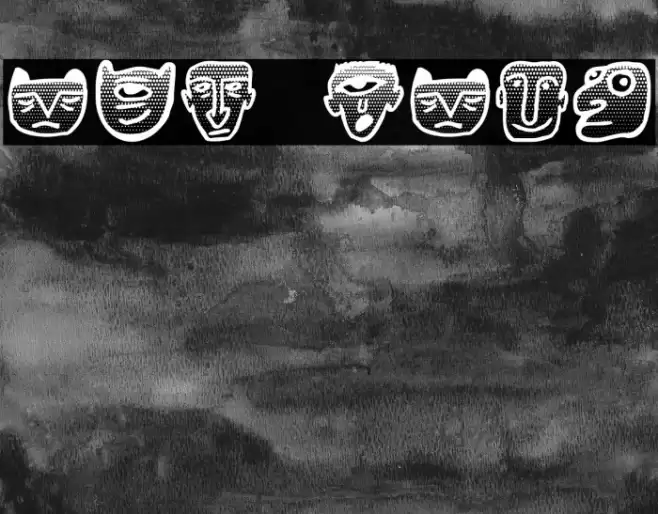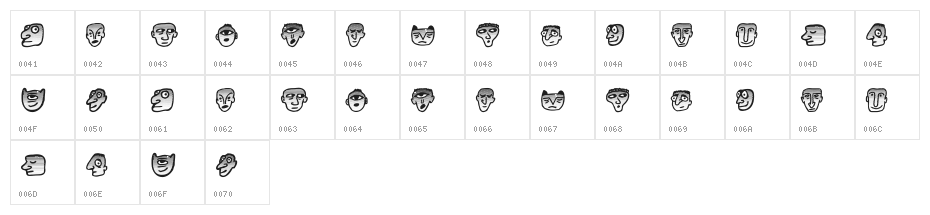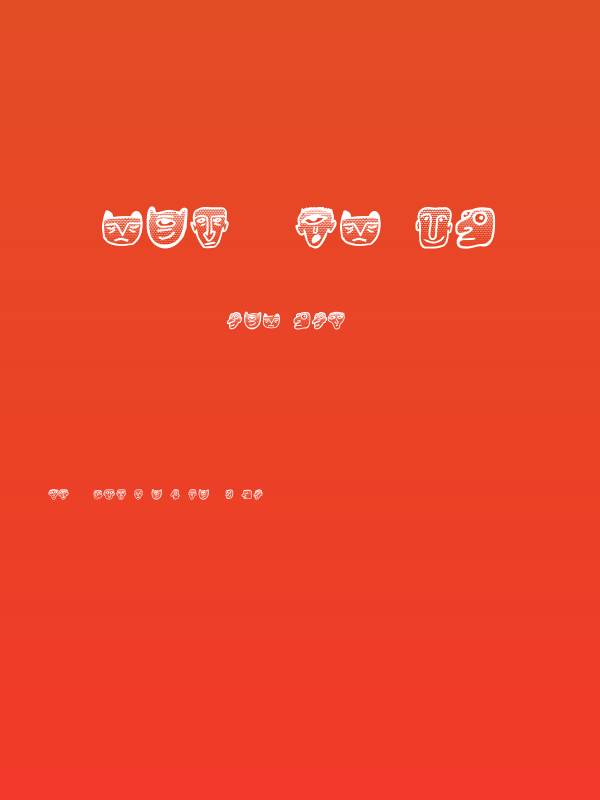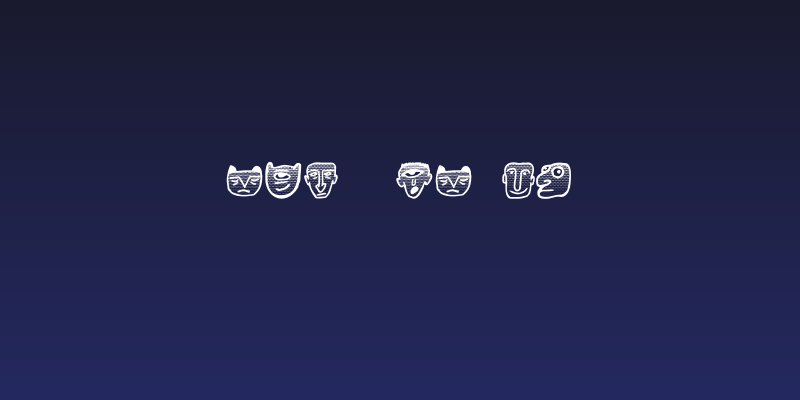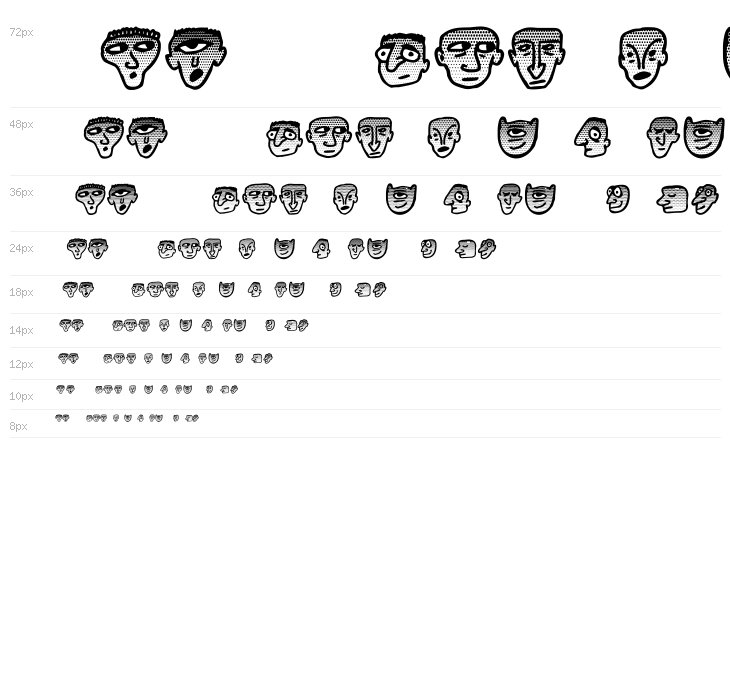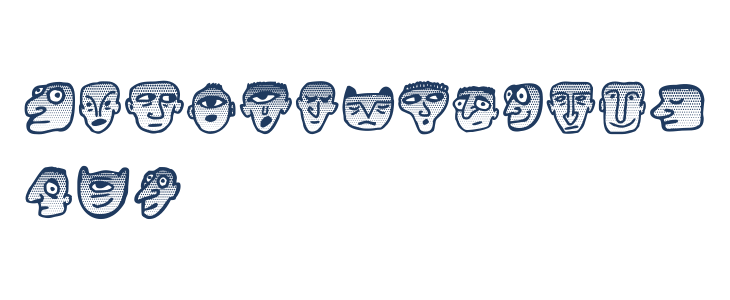
Ugok Regular Font
Ugok Regular Description
This font is a playful and artistic representation of characters, where each letter is depicted as a unique face with distinct expressions and features. The design is highly creative, with a cartoonish style that adds a sense of whimsy and fun. Each character is crafted with intricate details, showcasing a variety of facial expressions and accessories, making it visually engaging and full of personality. The font's unique approach to character design makes it stand out as a decorative and illustrative typeface.
A whimsical and artistic font with each letter as a unique face from Dingbats fonts.
- Proposed Projects: Ideal for creative projects such as children's books, comic strips, playful branding, and artistic posters.